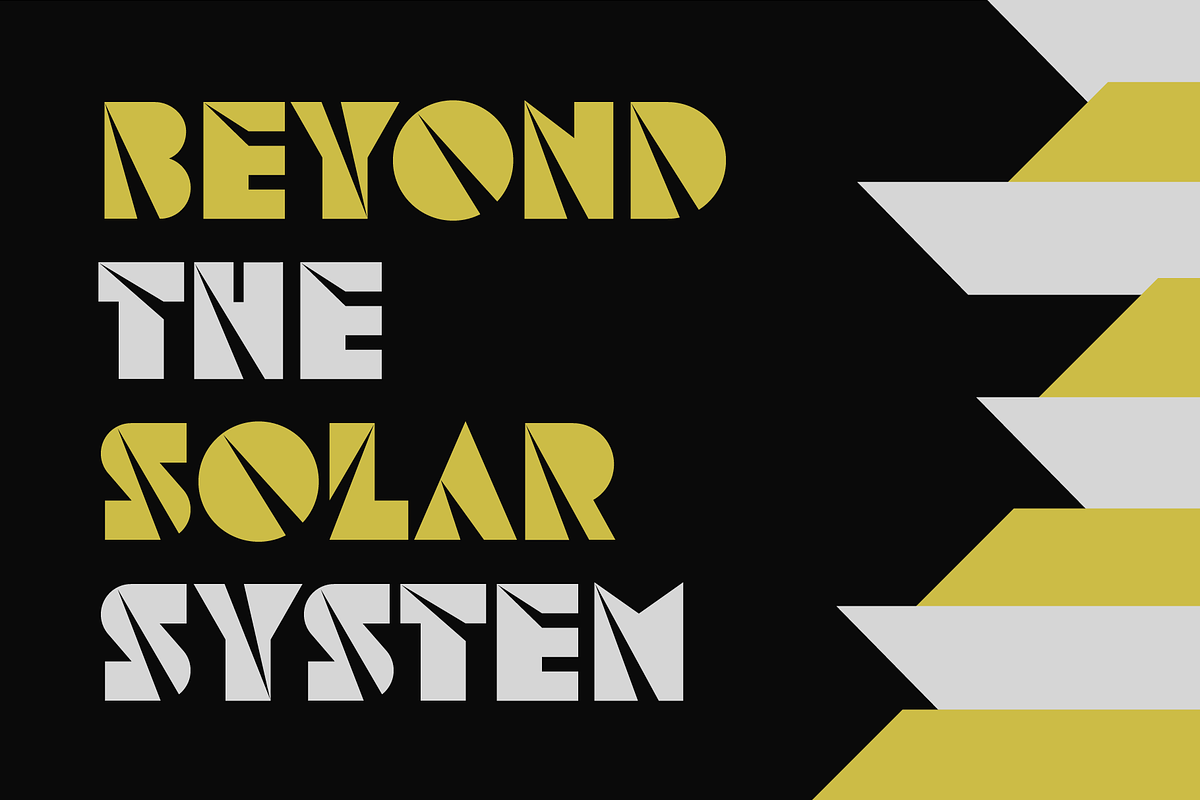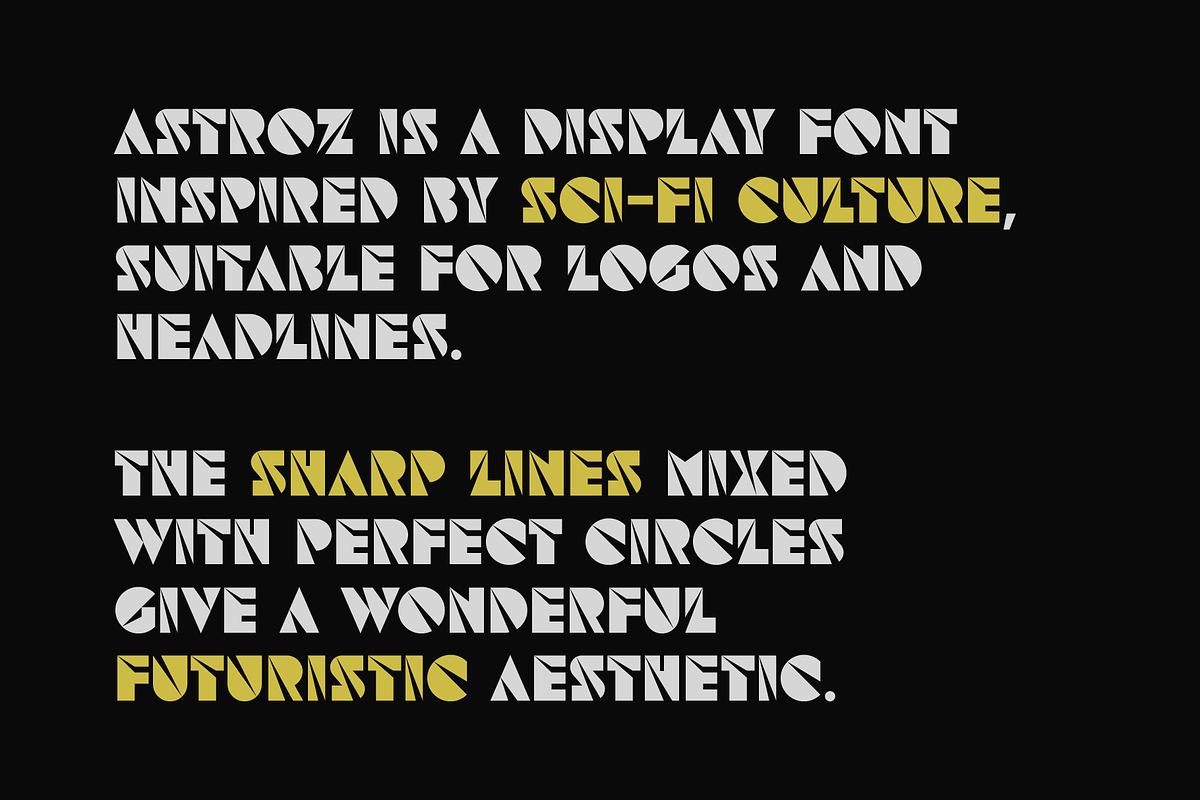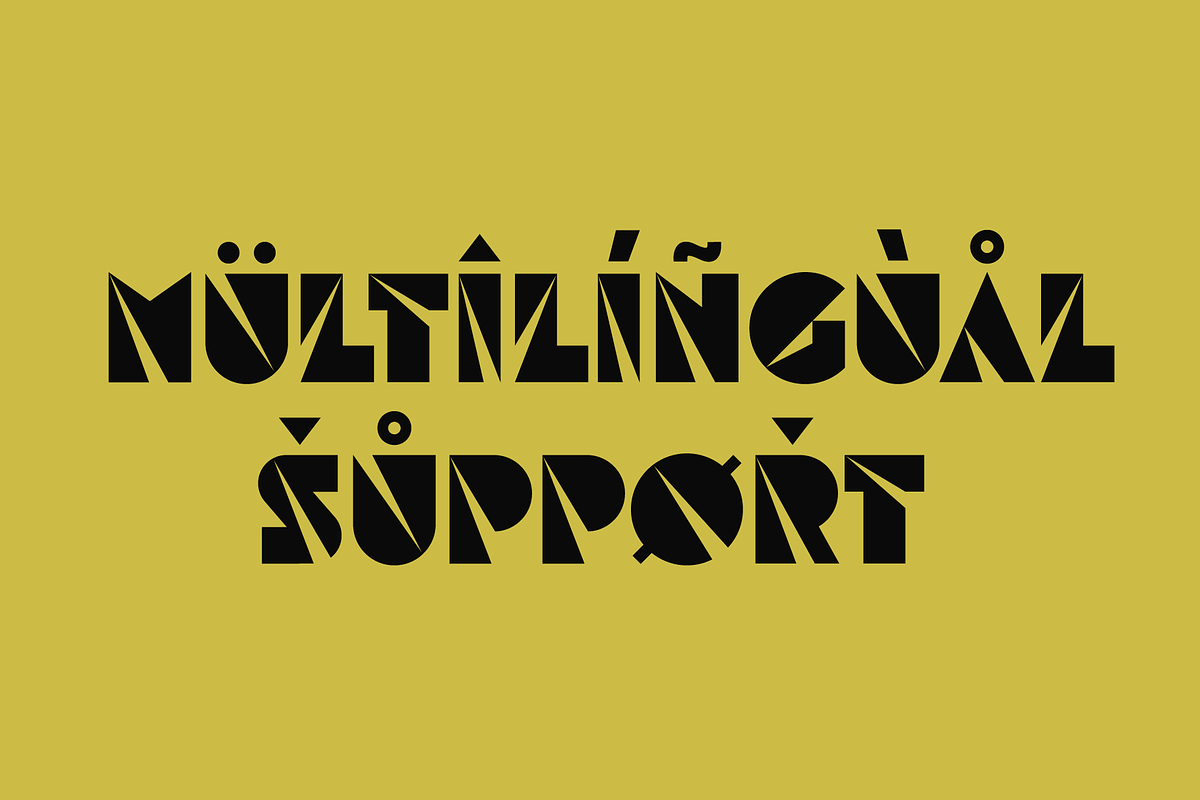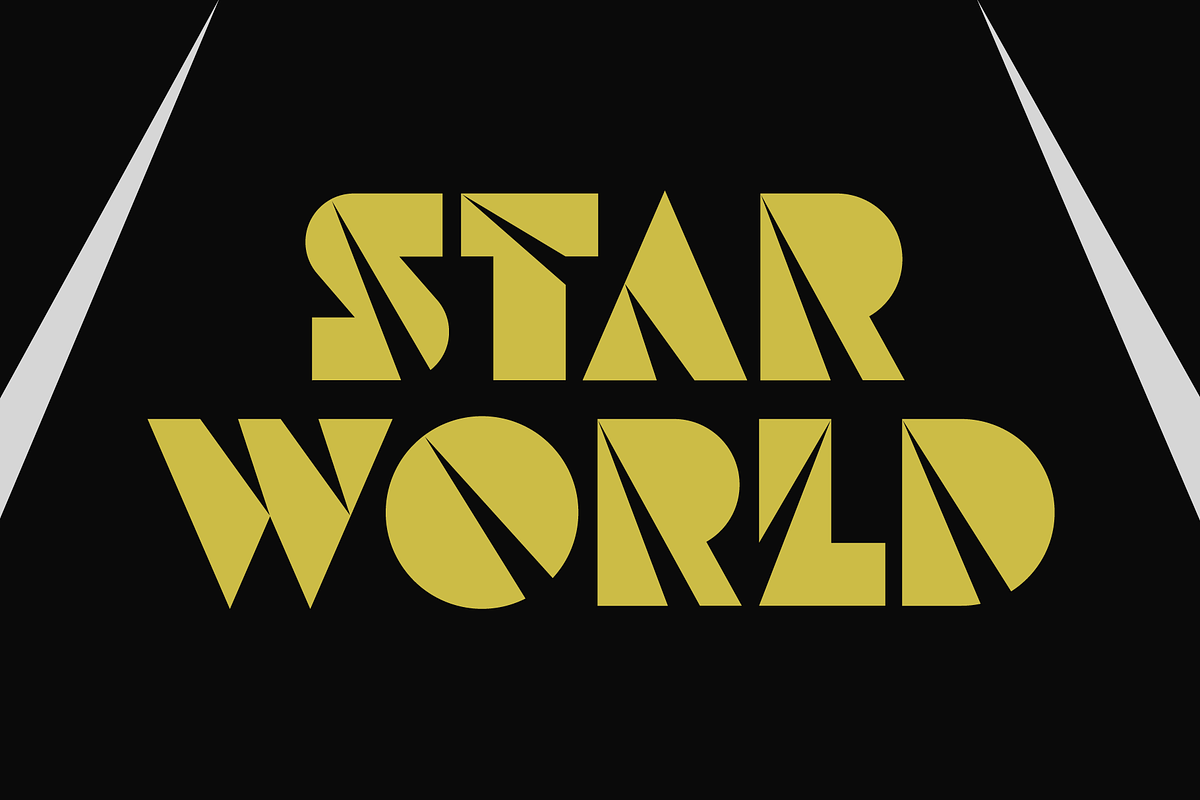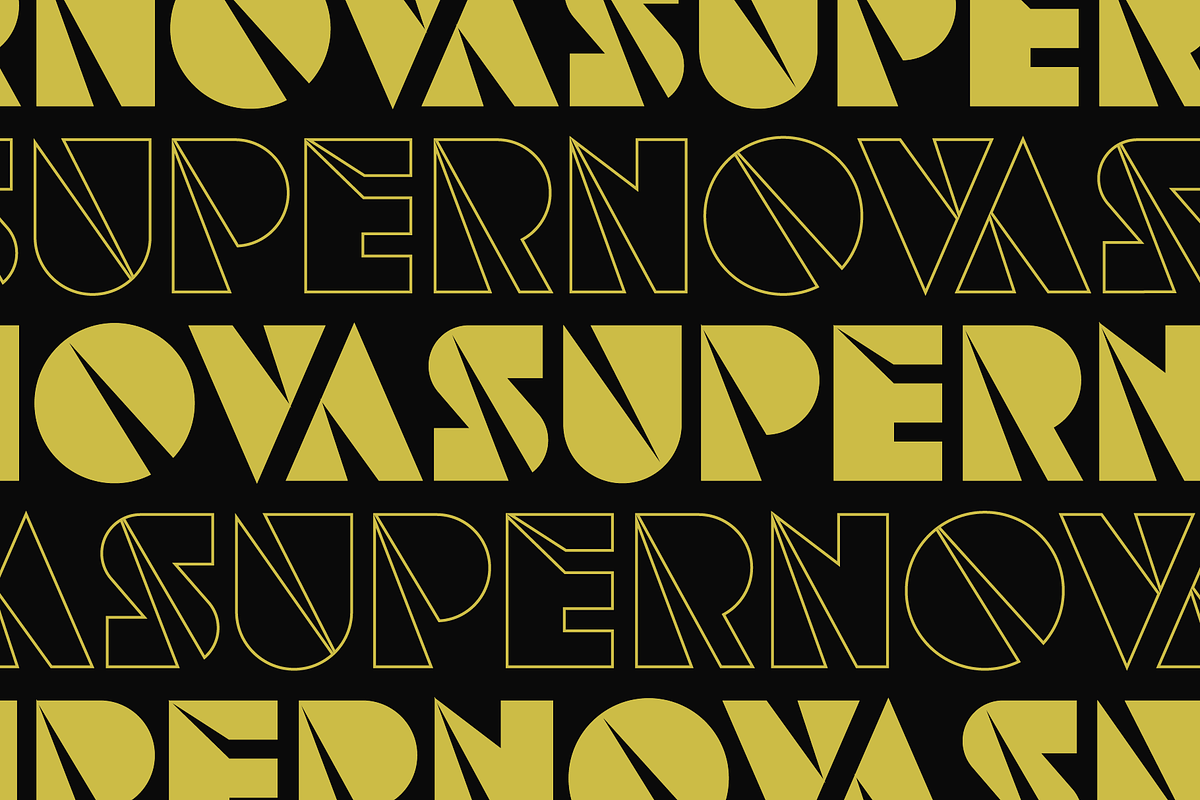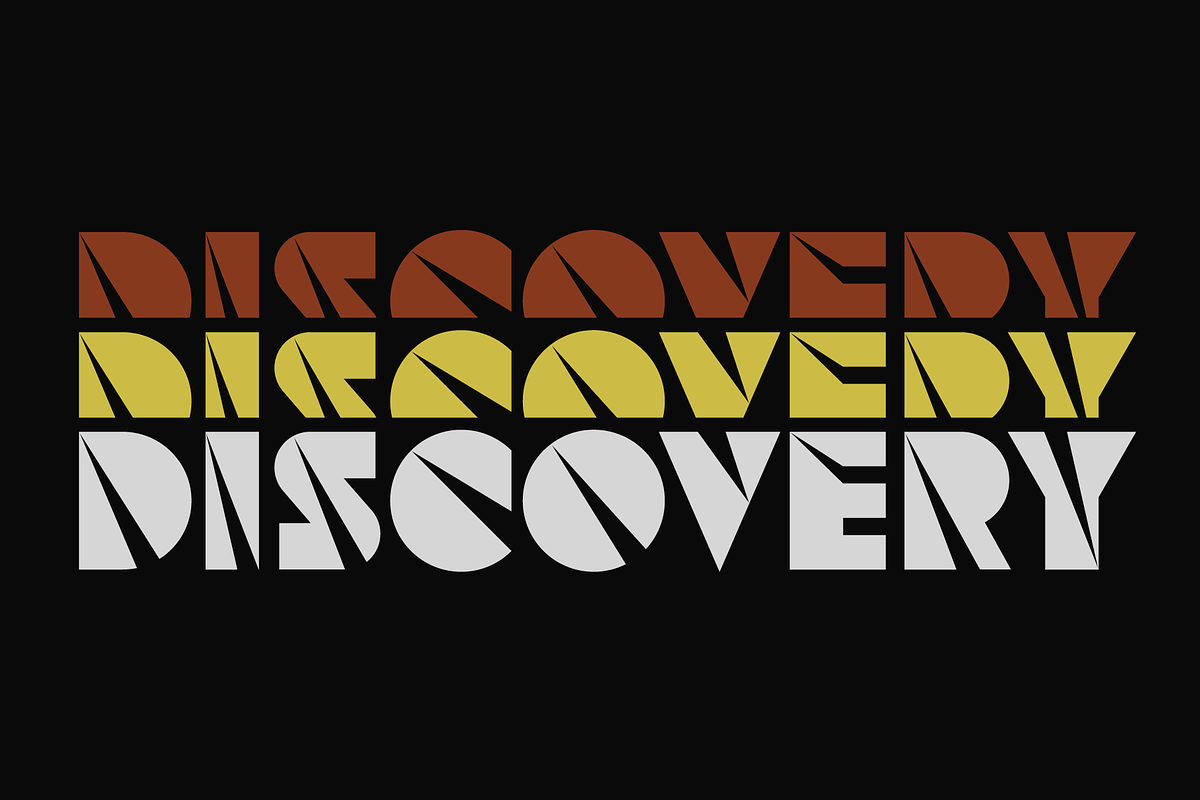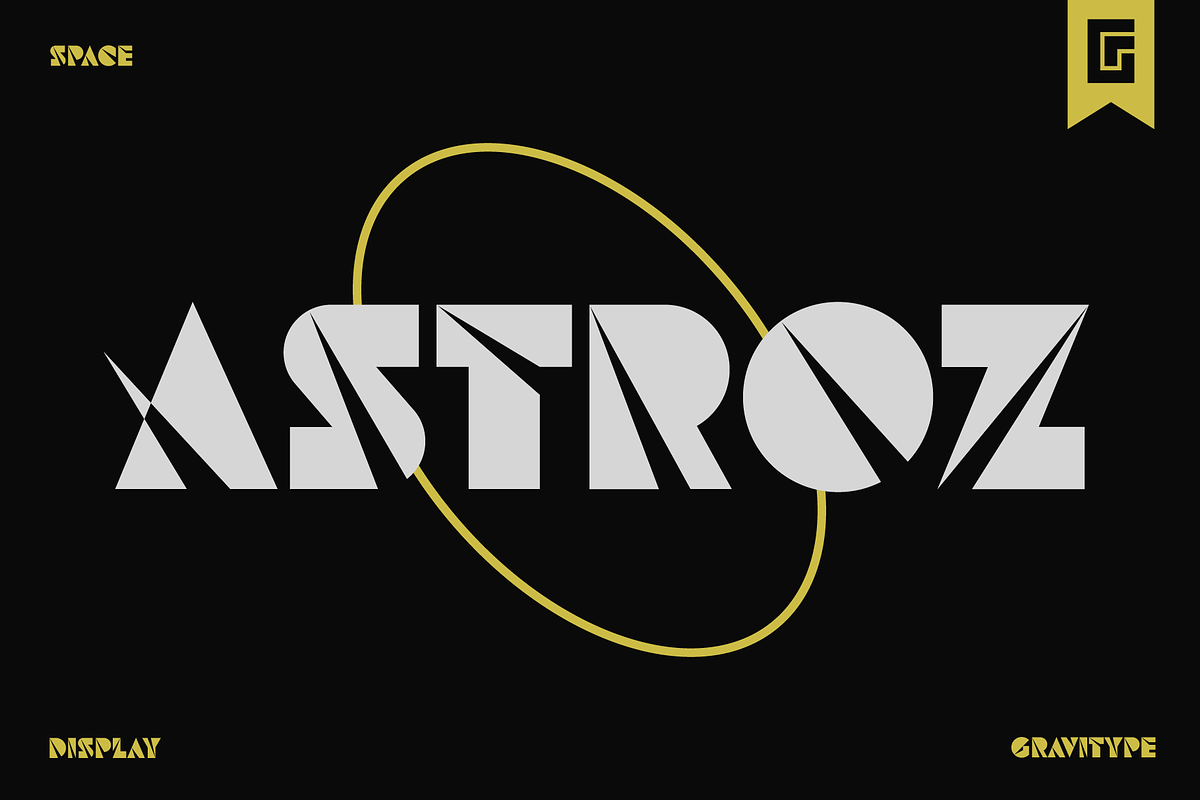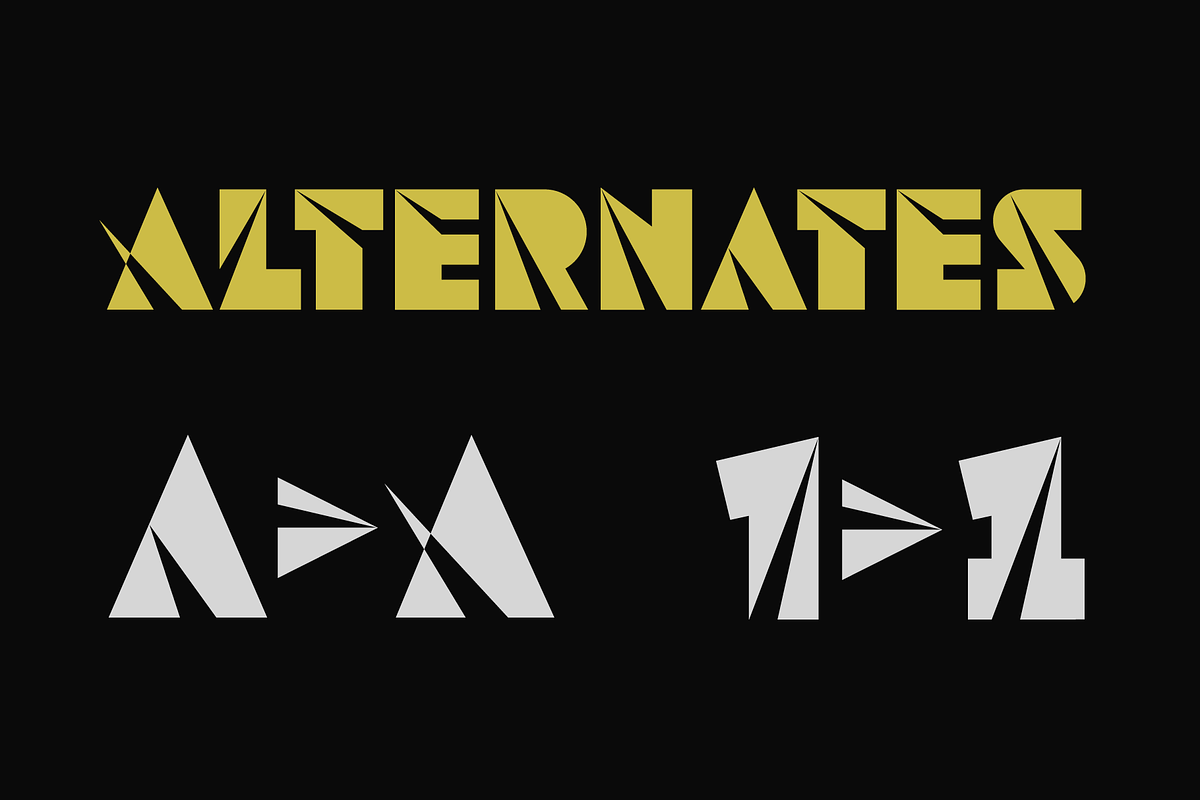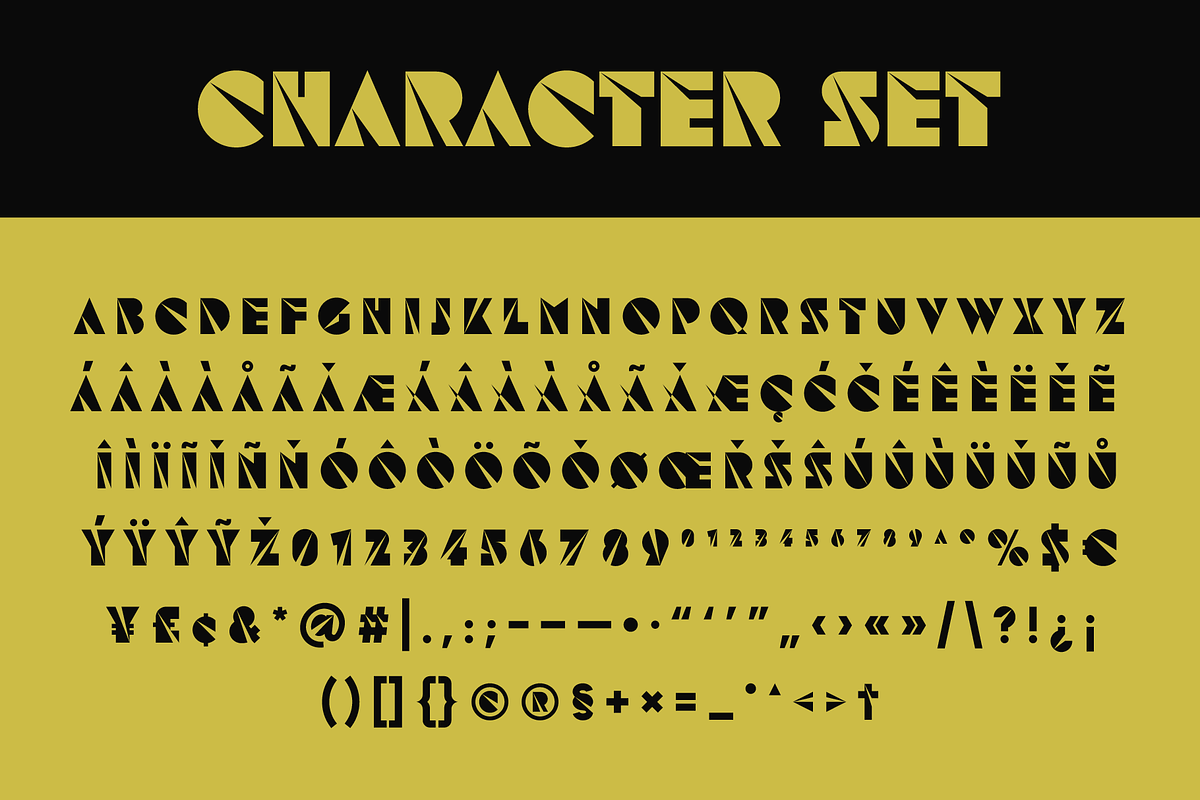
Astroz - Space Futuristic SciFi Font
Astroz is a single weight display font inspired by sci-fi culture and space environments.
It has been conceived for logos, headlines and posters.
The sharp lines mixed with perfect circles give a wonderful futuristic aesthetic, embracing the space exploration atmosphere.
In addition, alternates of letter “A” and number “1” are included to give you more stylistic options.
Multilingual support is available.